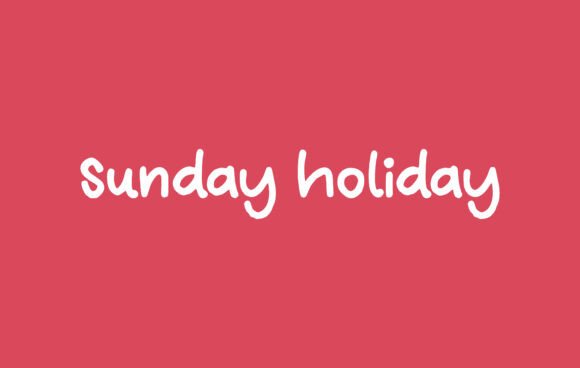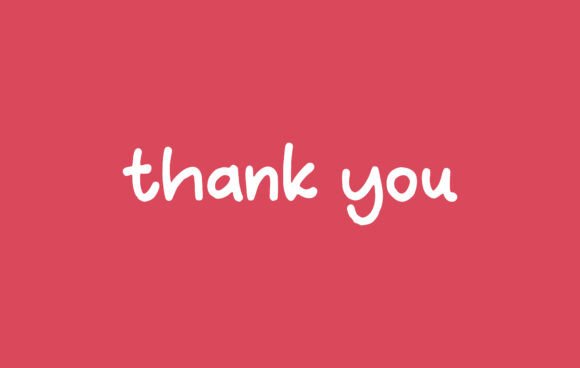
Discover the Charm of Carla Font: Elevate Your Designs with a Romantic Touch
In the world of typography, a font can make all the difference in bringing your creative vision to life. If you’re on the hunt for a typeface that exudes warmth, elegance, and a touch of romance, look no further than Carla Font. This authentic handwritten font is designed to capture the hearts of designers and crafters alike, offering a versatile and legible script that can elevate a wide range of projects.
The Unique Charm of Carla Font
Carla Font is more than just a typeface; it’s an expression of personality and style. With its roots in traditional handwriting, this font has been expertly crafted to bring a sense of authenticity and charm to your designs. Whether you’re working on a magazine headline, social media graphics, branding materials, or wedding invitations, Carla Font is the perfect choice for those seeking a romantic and sophisticated look.
Key Features of Carla Font
- Authentic Handwritten Style: Carla Font boasts a genuine handwritten appearance that adds a personal touch to any project.
- Romantic Touch: Its elegant strokes and curves bring a sense of romance and sophistication, ideal for designs that require a touch of class.
- High Legibility: Despite its intricate and flowing script, Carla Font remains highly legible, making it suitable for both title and body text.
- Versatility: From digital media to print, Carla Font adapts seamlessly across various platforms and design applications.
Applications of Carla Font
The versatility of Carla Font makes it an invaluable asset for designers and crafters across multiple disciplines. Here are some of the many ways you can utilize this beautiful font:
- Magazine Headlines: Stand out with captivating titles that draw readers in with their elegant and inviting appearance.
- Social Media Graphics: Elevate your online presence with stylish and engaging posts that reflect your brand’s personality.
- Branding: Establish a cohesive and sophisticated visual identity for your business or product.
- Wedding Invitations: Add a touch of romance and whimsy to your wedding stationery, making your special day even more memorable.
- Cards and Stationery: Whether for birthdays, anniversaries, or thank-you notes, Carla Font brings a heartfelt and personal touch to your correspondence.
Tips for Maximizing the Impact of Carla Font
To fully leverage the charm and versatility of Carla Font, consider the following design tips:
- Mix and Match: Combine Carla Font with complementary fonts to create visual interest and hierarchy in your designs.
- Color Selection: Choose colors that resonate with the mood you want to convey, keeping in mind that pastels and soft tones often enhance the romantic feel.
- Experiment with Sizes: Play with different font sizes to emphasize certain words or phrases, adding depth and dynamism to your text.
- Embellish with Graphics: When appropriate, add simple illustrations or graphics that align with the theme of your design to further personalize it.
Carla Font is a treasure trove of creativity for designers and crafters looking to infuse their projects with a romantic and authentic touch. Its legibility, versatility, and charming aesthetic make it an excellent choice for a wide array of applications. By incorporating Carla Font into your design toolkit, you’ll be well-equipped to create visually stunning and emotionally resonant content that captivates your audience. So why wait? Explore the possibilities with Carla Font today and watch your creative ideas soar to new heights.